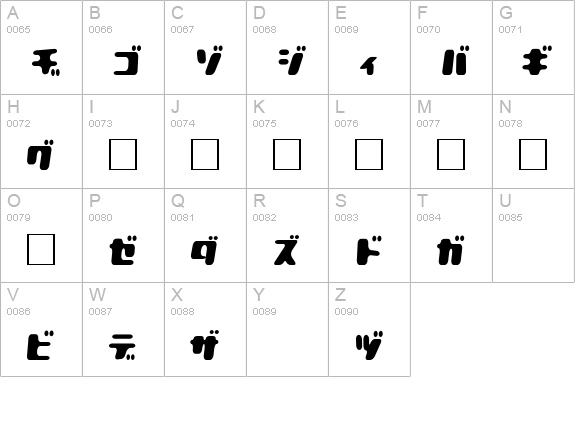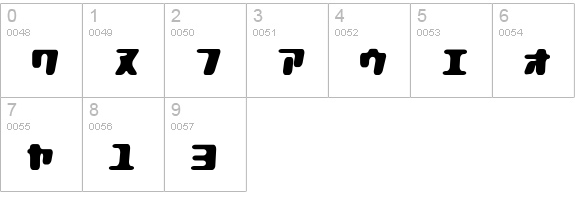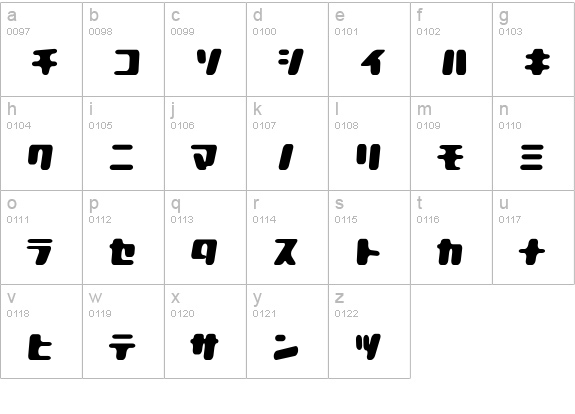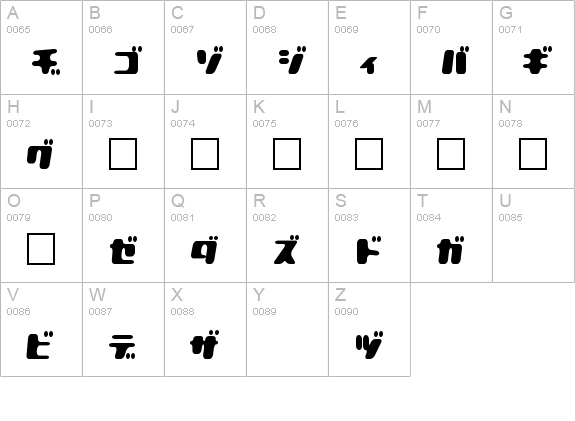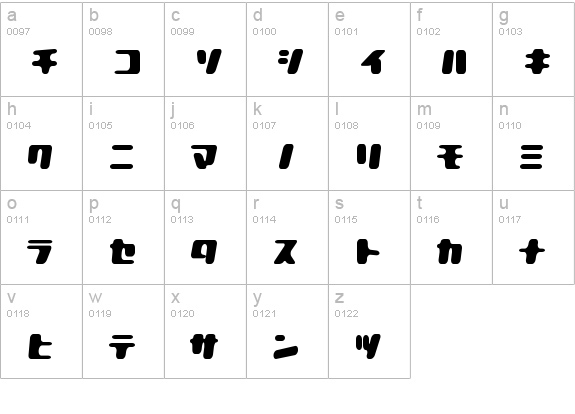
Bipolar Regular is the standard, neutral variant in the Bipolar typeface family \xE2\x80\x94 well suited to general body text, paragraphs, and standard typographic work.
Bipolar Regular font is a versatile and modern typeface that exudes a unique blend of elegance and boldness. With its clean lines and balanced proportions, this font is perfect for a wide range of design projects, from branding to editorial design. The versatility of Bipolar Regular font makes it a great choice for both headers and body text, ensuring a cohesive and polished look across all your design elements. The best part? Bipolar Regular font is available for free download at FontsMarket.com, making it easily accessible for designers and creatives looking to add a touch of sophistication to their projects without breaking the bank. Download Bipolar Regular font today and elevate your designs with its timeless appeal and modern charm.